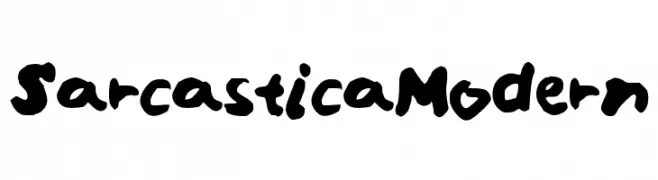
( Ittype )
A bold, angular font with a geometric and adventurous style.
( Lttg )
A bold, playful handwritten font with thick, uneven strokes.
( Lttg )
A playful, bold, and hand-drawn font with a cartoonish style.
( M#rm#n - Mar Man )
A geometric, monospaced display font with a mechanical, architectural style.
( Marco Ballarè - www.marcoballare.com )
A modern geometric sans-serif font with clean lines and uniform stroke width.
( Marco Ballarè - www.marcoballare.com )
A whimsical, skyline-themed decorative font with hand-drawn cityscape characters.
( Martin Sørensen )
A futuristic, geometric font with clean lines and rounded edges.
( Mas Anis Studio - Naufal Anis - creativemarket.com/naufalans?u=naufalans )
A graceful and flowing script font with a handwritten style.
( Mas Anis Studio - Naufal Anis - creativemarket.com/naufalans?u=naufalans )
A graceful, flowing script font with elegant curves and loops.
( Matias Romero - matiasromero.deviantart.com/ )
A bold, modern font with geometric elements and strong visual impact.